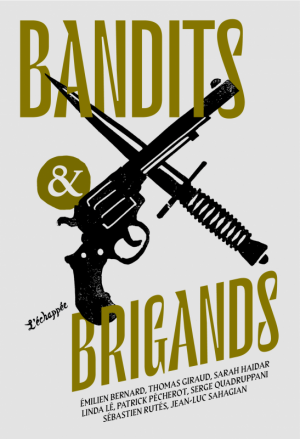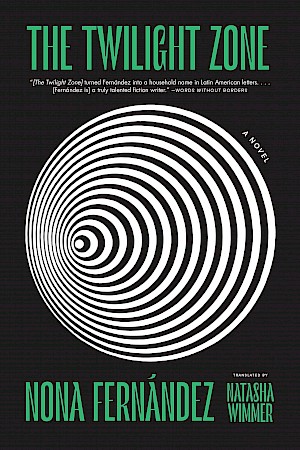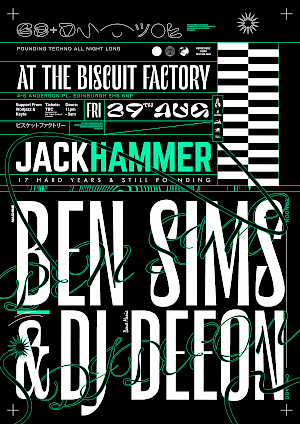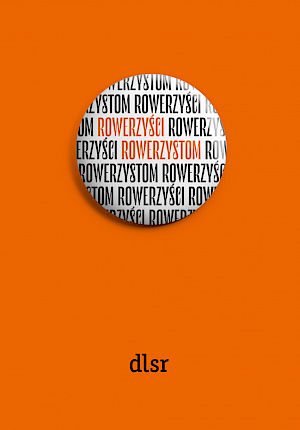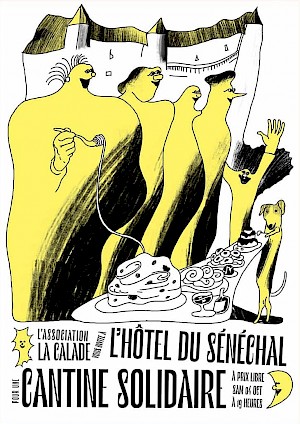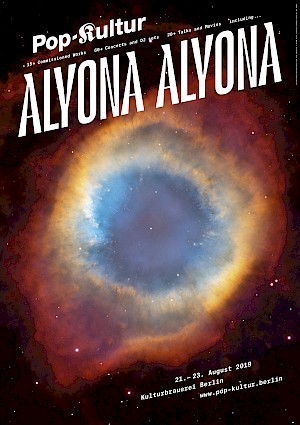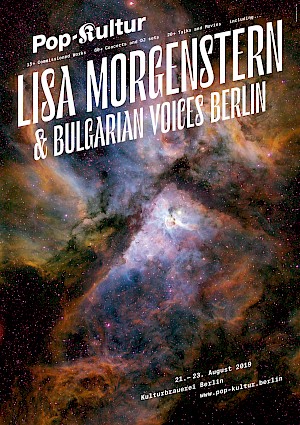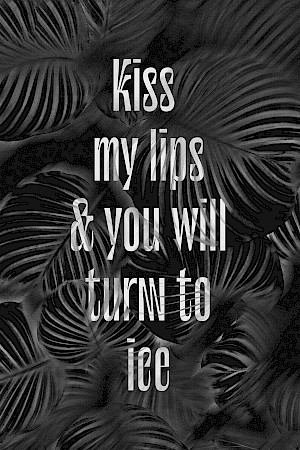
Le Murmure
To renew their brand image, the French design agency Murmure has decided to base their remodeling on a custom-designed typeface: Le Murmure (“The Murmure” in French). Studio Triple designer Jérémy Landes has developed an especially distinctive, editorial and elegant font, which has been complemented by surprising stylistic variations.
Jérémy has lent an attentive ear to create a typeface in line with Murmure's image. Le Murmure font plays on a skillful mismatch between characters, creating a unique rhythm which carries our voice. This fruitful and enriching collaboration strengthens Murmure’s graphic and collaborative vision to undertake singular and sensitive projects.
Used as a titling font, its height and the stability of its shapes lend it elegance, whilst details inspired by calligraphy and technique reveal all of Murmure’s notions of experimentation, research and creativity. Le Murmure is a typeface devoid of serifs which combines effectiveness, legibility and singularity. Its highly condensed proportions draw their inspiration from magazine titling fonts and add the editorial dimension the agency wished to endow their new identity with.
This typeface comes with many glyph variations, meaning alternate letters drawn in an even more original way. Here lies infinite potential which the users will take great delight in exploiting through a random opentype function.
Inga Plönnig's Magnet was a great influence on Le Murmure. If you like Le Murmure, you should defintely have a look at the broader family that Magnet has to offer.
Le Murmure won a Grand Prix at the Red Dot Award 2018, a Certificate of Excellence of the Type Directors Club 2019 and the Gold at the Club des Directeurs Artistiques 2019. The Cyrillic created by Alex Slobzheninov was awarded one of the best Cyrillic typefaces of 2019 by the Modern Cyrillic Award.
Le Murmure
is a custom typeface created for Agence Murmure
Alex Slobzheninov added a carefully designed Cyrillic set to the basic latin set already supported by the typeface. Александр Слобженинов добавил тщательно проработанную кириллицу к уже существующей в шрифте латинице.
Ο George Triantafyllakos σχεδίασε τα ελληνικά γράμματα!